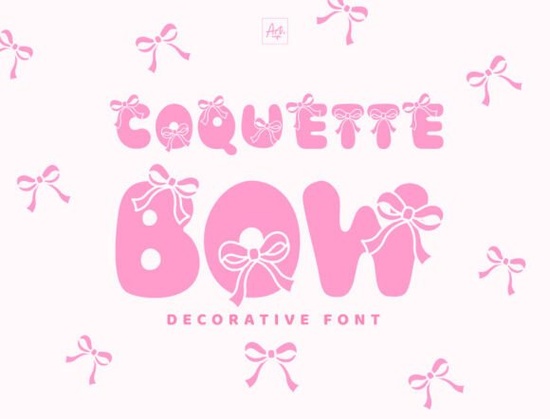
If you’ve been searching for a decorative font that blends playful charm with bold presence, the Coquette Bow Font might be exactly what your next project needs. Designed with eye-catching bow accents built right into each letterform, it’s made for headlines, posters, and any design where you want to add a touch of girly whimsy without sacrificing legibility or impact.
This isn’t just another cutesy script it’s a statement font. The Coquette Bow Font leans into its personality with confidence, making it ideal for birthday invitations, nursery decor, boutique branding, or even print-on-demand apparel aimed at teens and young adults who love all things pink, sparkly, and full of flair.
What kinds of projects work best with Coquette Bow?
Because of its bold weight and decorative details, this font shines in display settings think large text where every character gets room to breathe. It’s not meant for body copy, but it’s perfect for:
- Birthday party banners and cupcake toppers
- Children’s book covers or chapter titles
- Custom T-shirts, mugs, and tote bags with sassy or sweet slogans
- Social media graphics for beauty brands or lifestyle influencers
- Wedding signage with a playful, non-traditional vibe
If your audience responds to designs that feel joyful and youthful, Coquette Bow adds instant visual interest without needing extra embellishments.
How does it compare to other decorative fonts?
Not all decorative fonts are created equal. Some lean vintage, others modern but Coquette Bow carves out its own niche with those integrated bow motifs. If you like this style, you might also enjoy exploring similar options that balance personality and usability.
Each serves a different mood, but they all share one thing: they’re designed to stand out in a headline or logo not disappear into paragraphs.
Is it easy to use for beginners?
One tip: because of the bow details, avoid using it at very small sizes (under 24pt) or in tight spaces where the flourishes might blur together. Give it room, and it’ll reward you with charm.
Does it pair well with other typefaces?
Absolutely. Because Coquette Bow is so distinctive, it pairs best with clean, simple sans-serifs. Think fonts like Montserrat, Lato, or even basic system fonts like Arial or Helvetica. The contrast keeps your design balanced fancy headline, readable supporting text.
For example, a birthday invitation might feature “You’re Invited!” in Coquette Bow, with date, time, and RSVP details set in a neutral sans-serif. This combo ensures your message stays clear while still feeling festive.
Who is this font really for?
It’s especially useful if you:
- Run a small Etsy shop selling printable party kits
- Create custom apparel for girls’ birthdays or teen events
- Design social content for beauty, fashion, or lifestyle niches
- Make classroom decor or children’s activity books
- Want to add a signature look to your brand without hiring a calligrapher
It’s not for corporate reports or minimalist branding but if your work celebrates joy, femininity, or childhood wonder, this font speaks your language.
Before you download, ask yourself: Does my project need personality over polish? If yes, Coquette Bow delivers with bows on top.
Quick checklist before you buy:
- Use case: Is this for headlines, logos, or short phrases? (Not body text.)
- Audience: Will your customers or viewers connect with a girly, playful aesthetic?
- Size: Can you use it large enough (24pt+) to show off the bow details?
- Pairing: Do you have a simple complementary font ready for supporting text?
If most of those boxes are checked, Coquette Bow could become a go-to in your creative toolkit especially when you want your words to wear a little bow.